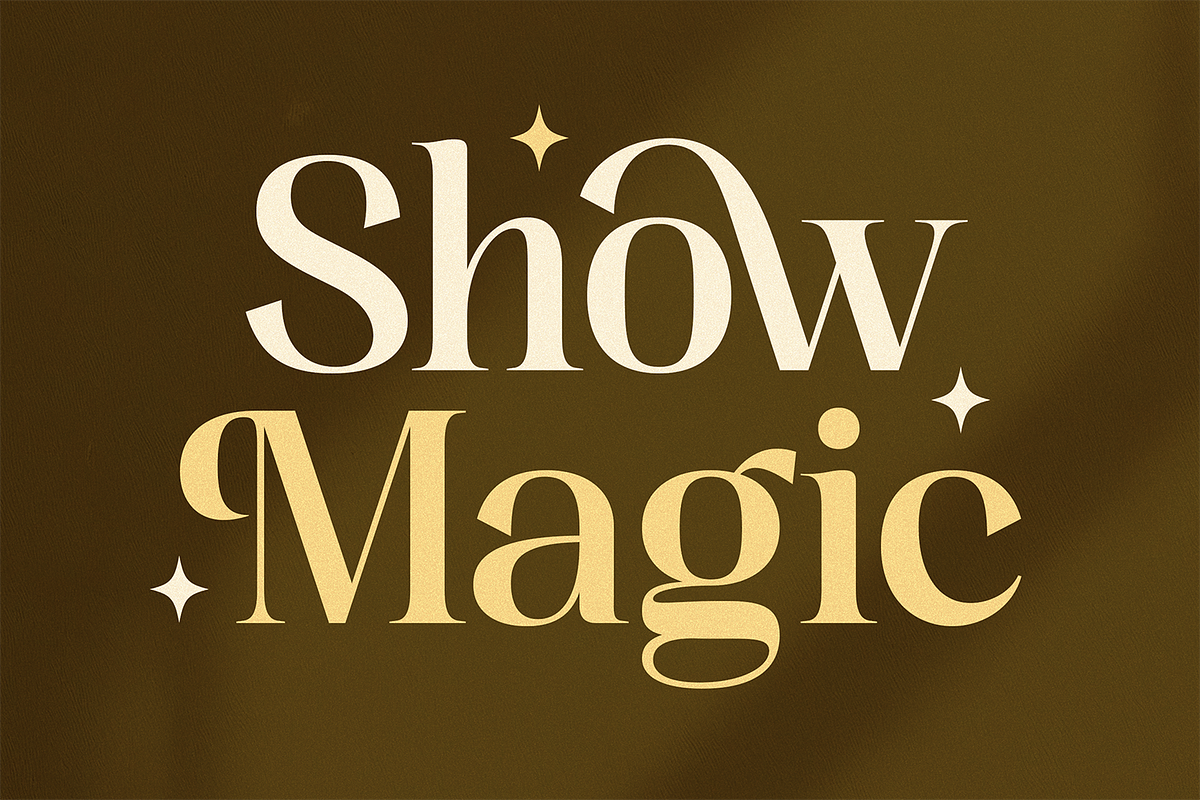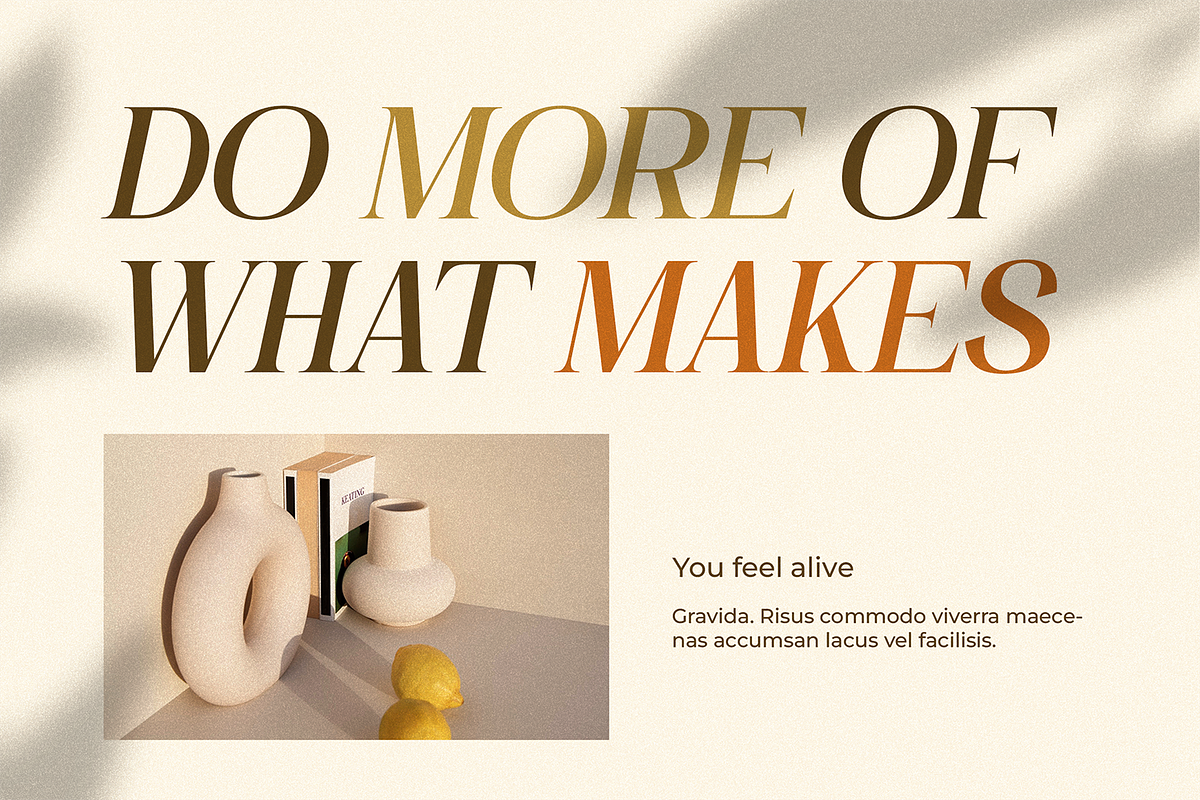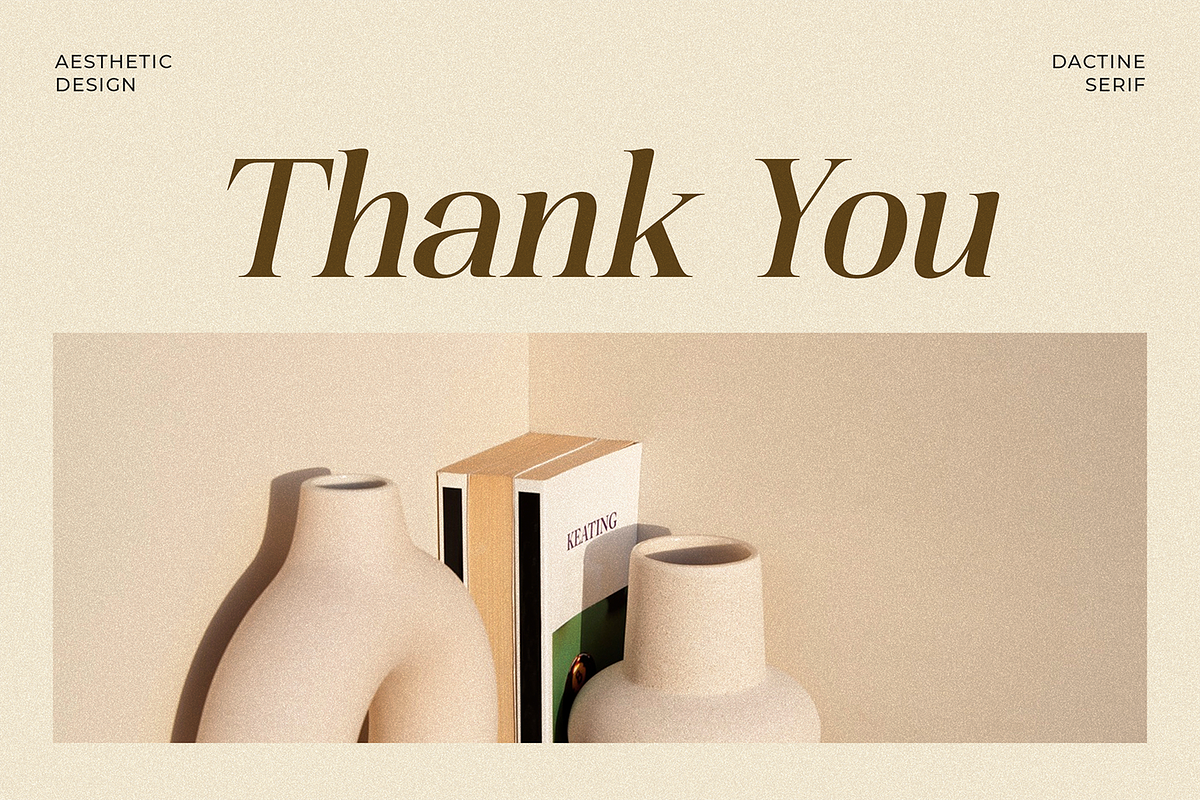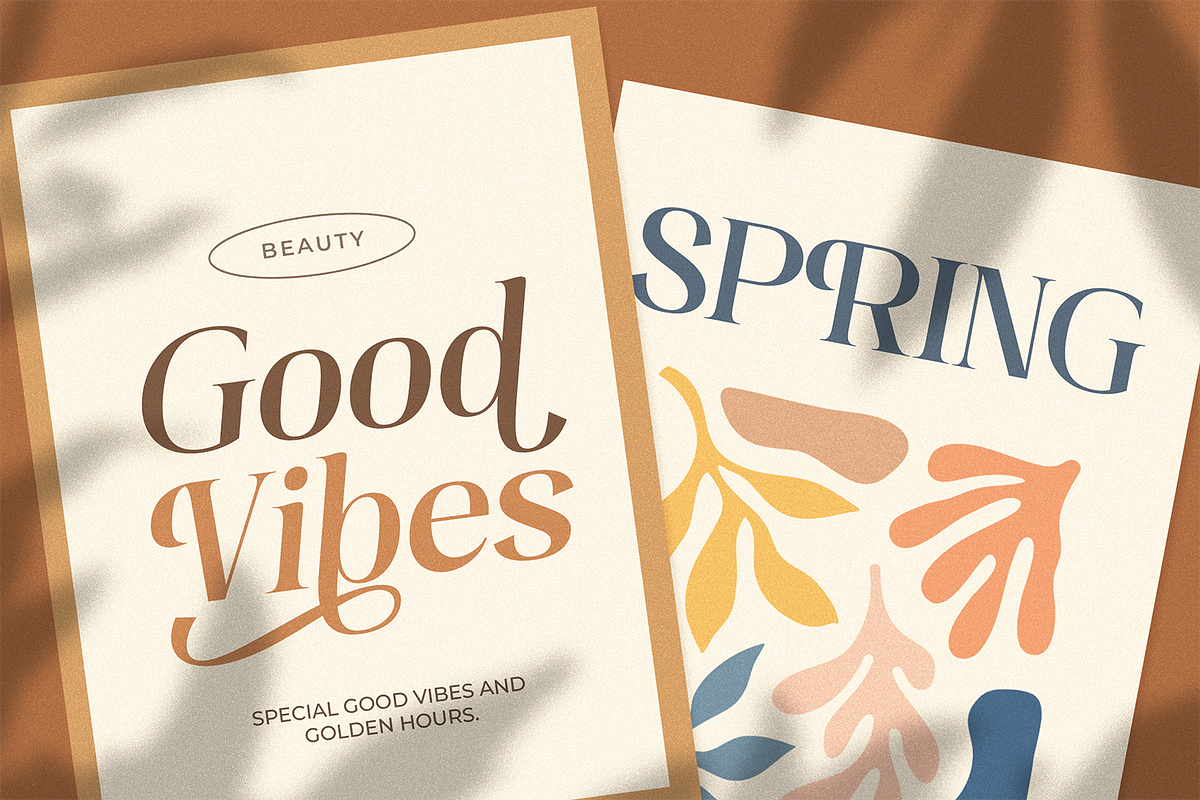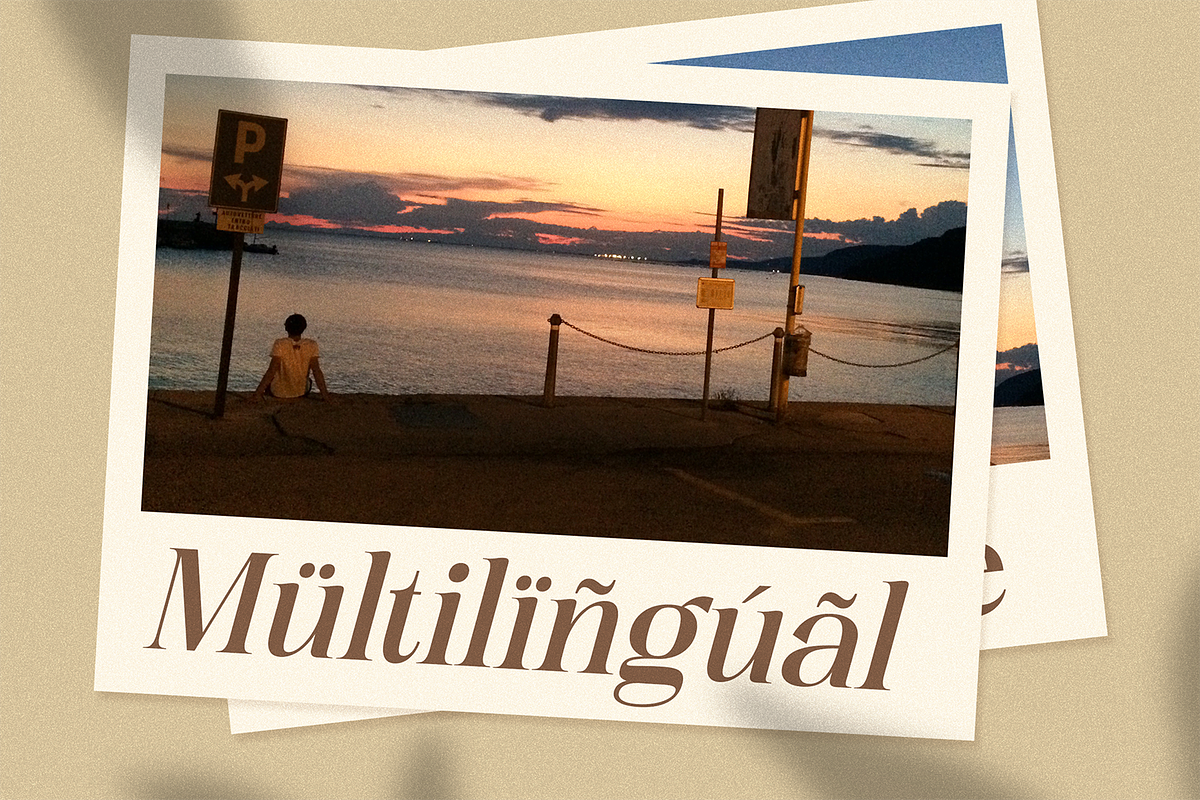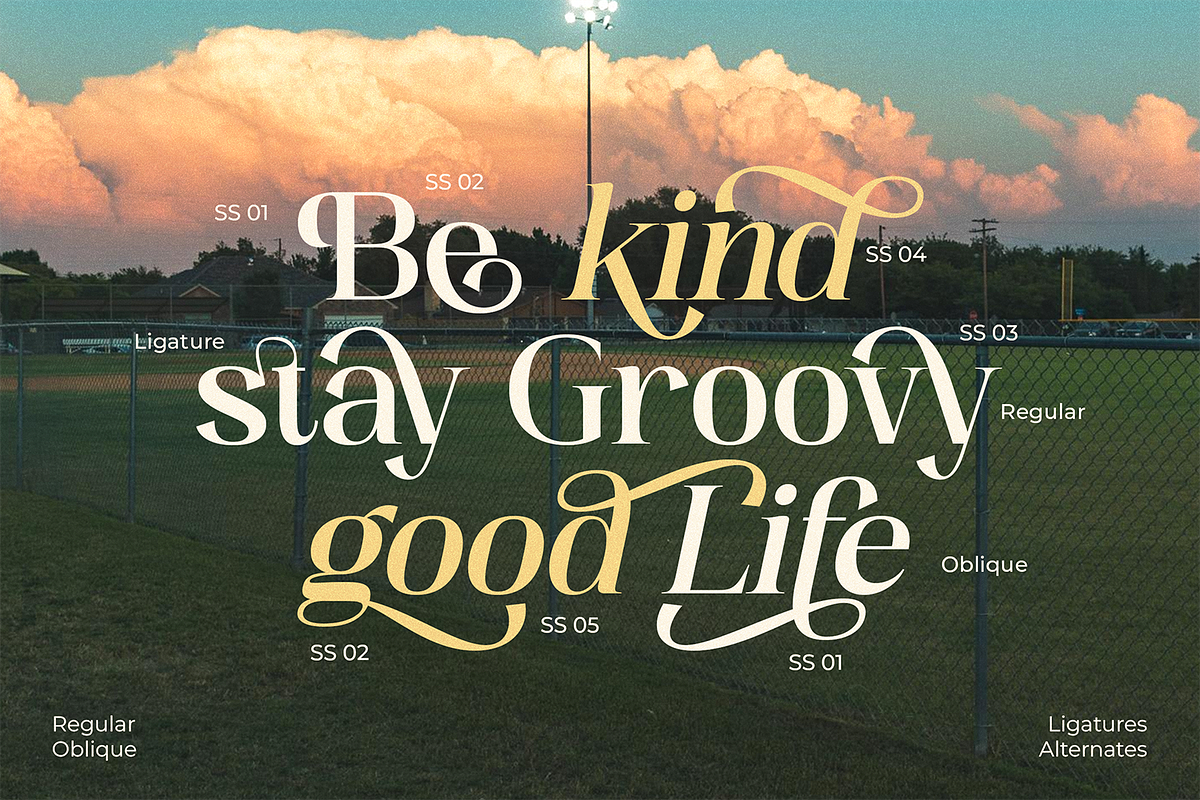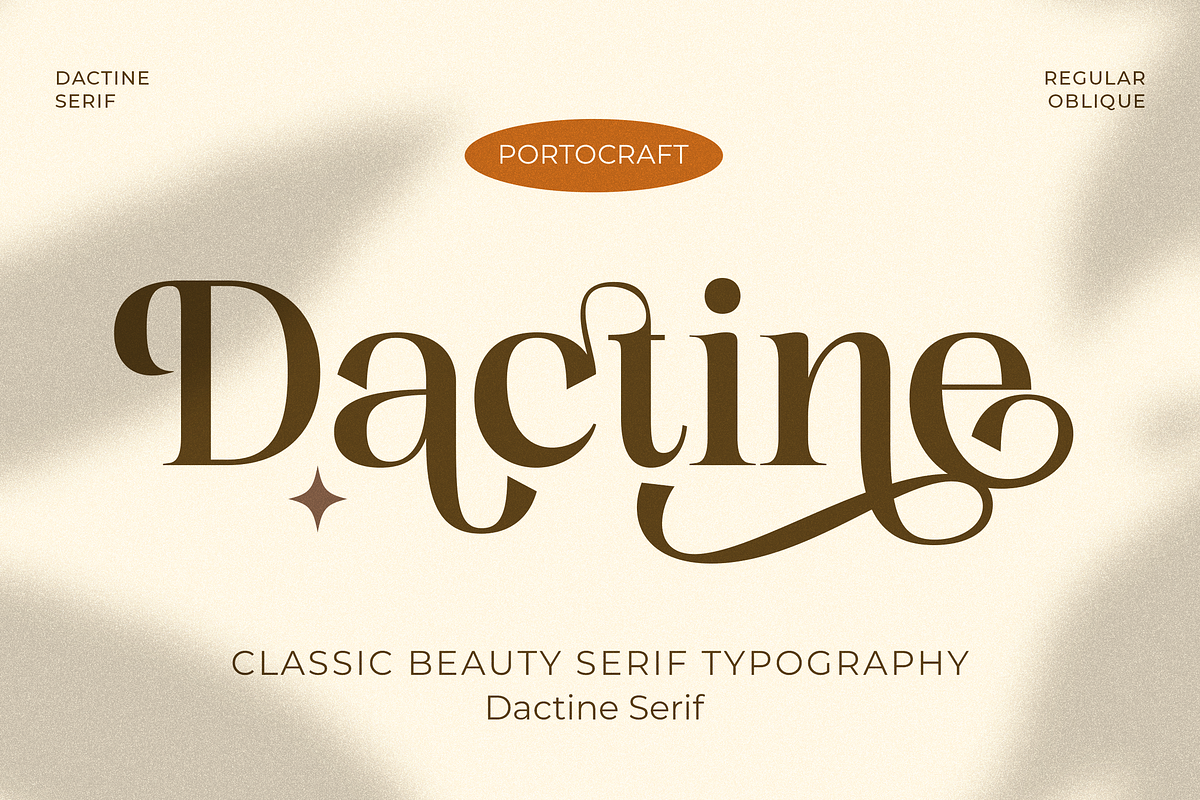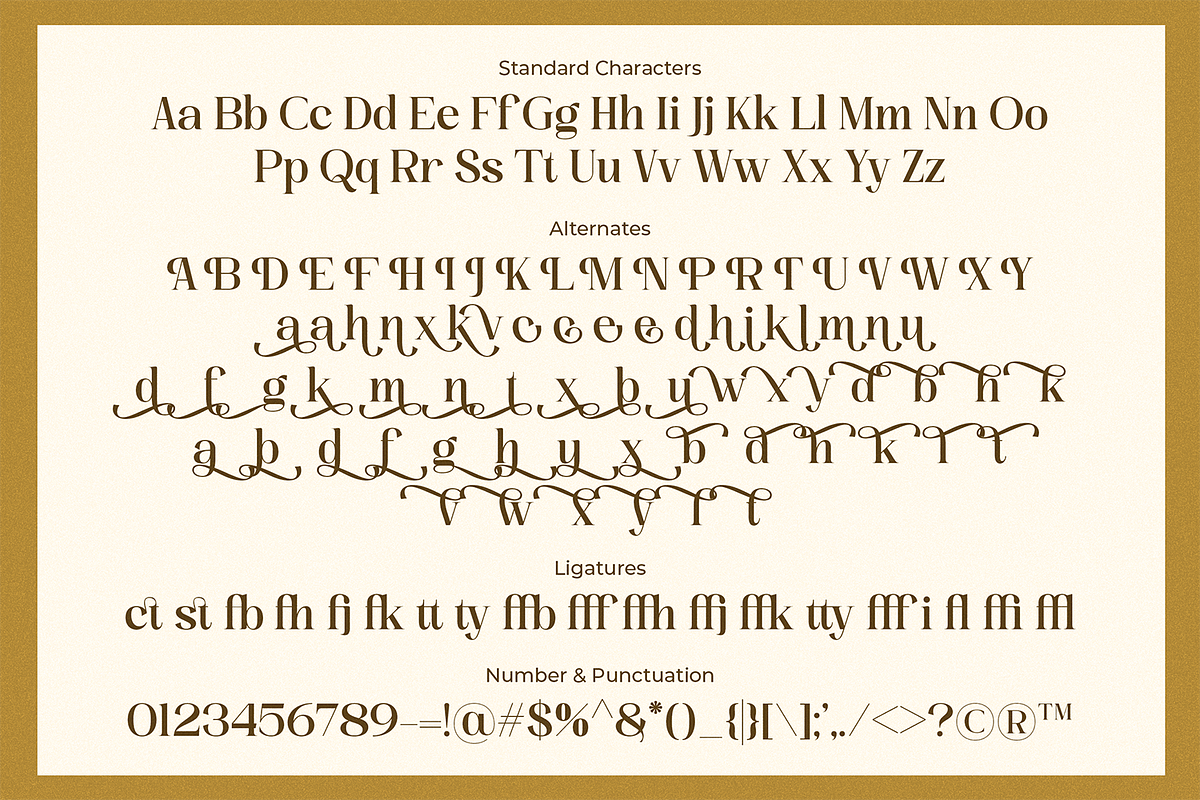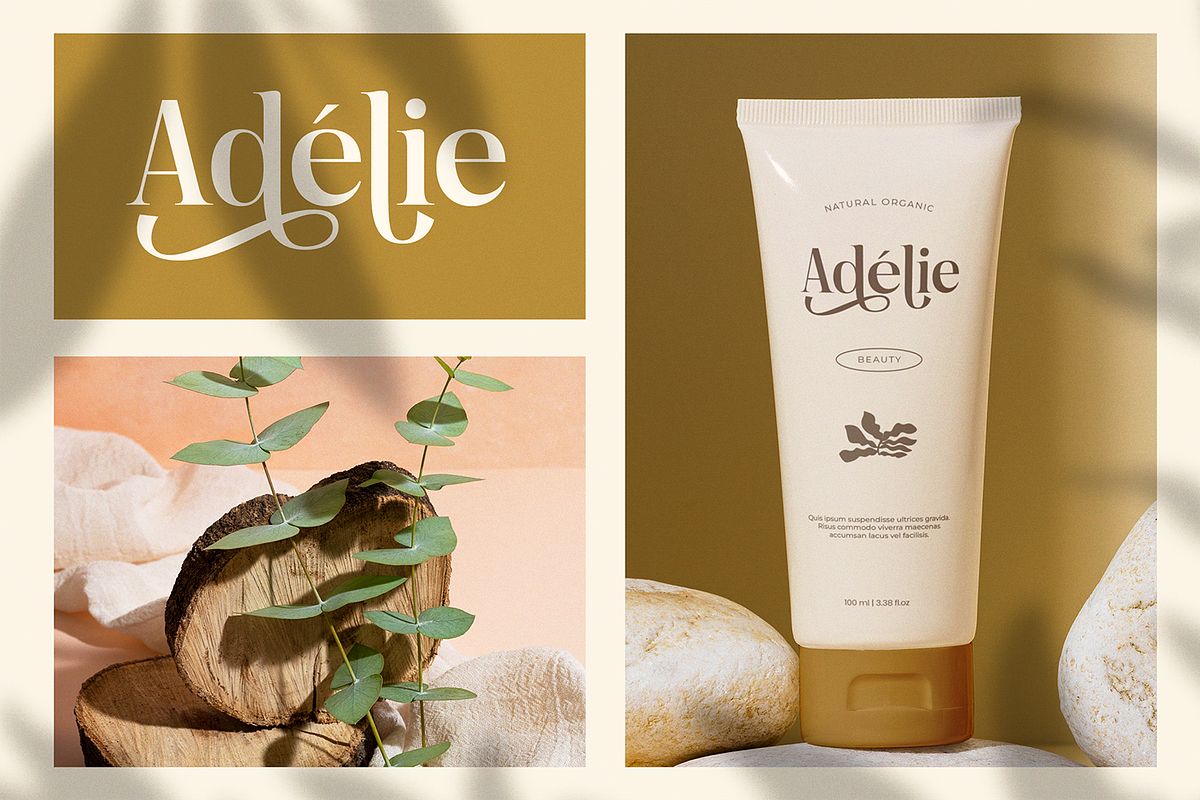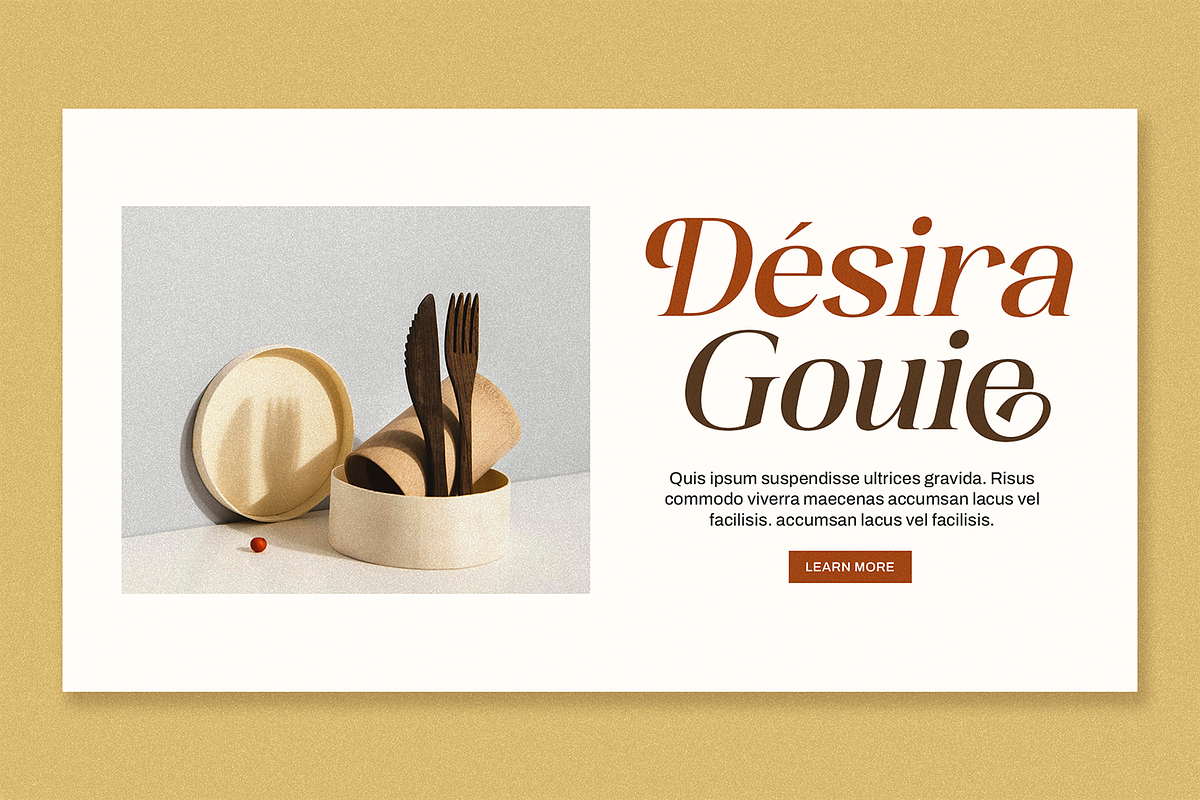
Dactine Classic Beauty Serif
Introduce timeless elegance to your creative projects with Dactine, a premium classic beauty serif font designed by Portocraft. Characterized by high-contrast strokes, sophisticated curves, and graceful ligatures, this typeface seamlessly blends heritage serif aesthetics with a modern, high-end fashion flair.
Available in both Regular and Oblique styles, Dactine is equipped with beautiful stylistic alternates and swashes that allow you to create stunning, customized typography with a luxurious, editorial feel.
Best Used For:
Luxury Branding & Logos: Perfect for high-end fashion houses, jewelry brands, cosmetic logos, premium boutiques, and corporate identities.
Editorial & Magazines: Ideal for elegant headlines, striking cover titles, editorial layouts, and sophisticated lookbooks.
Packaging & Label Design: Adds an upscale and romantic touch to perfume bottles, luxury skincare packaging, wine labels, and premium gifts.
Weddings & Stationery: Beautifully suited for formal wedding invitations, romantic greeting cards, menus, and upscale event branding.
Social Media & Web Design: Highly engaging for aesthetic quote graphics, lifestyle Instagram posts, luxury web headers, and digital ads.
Complete uppercase and lowercase character set with elegant alternates
Numbers, punctuation, and decorative ligatures
Multi-language support